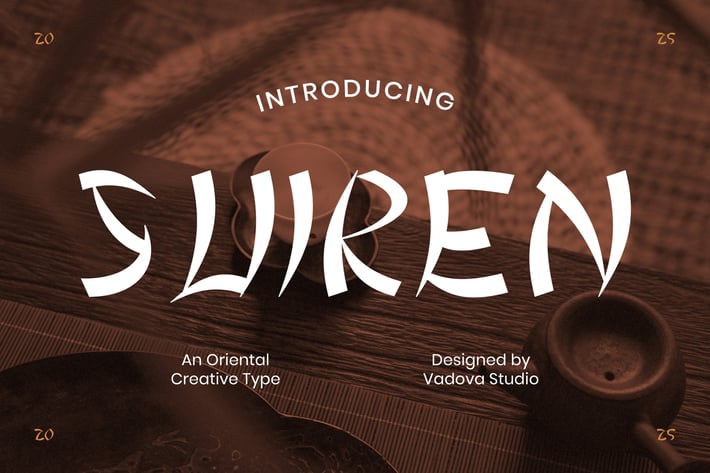
Suiren Creative Font
SUREN is an oriental-inspired display font featuring expressive brush strokes and a calm, artistic rhythm. Influenced by East Asian aesthetics, tea culture, and zen philosophy, the letterforms feel organic, balanced, and naturally flowing. Its hand-drawn character adds warmth and personality while maintaining clarity for display use. SUREN delivers a peaceful yet expressive visual tone that blends tradition with modern creativity.
Suitable For Asian and oriental branding, zen and wellness projects, tea or café branding, posters, book covers, logos, packaging, meditation visuals, cultural events, lifestyle branding, restaurant graphics, and creative projects that require a calm, artistic, and authentic oriental atmosphere.